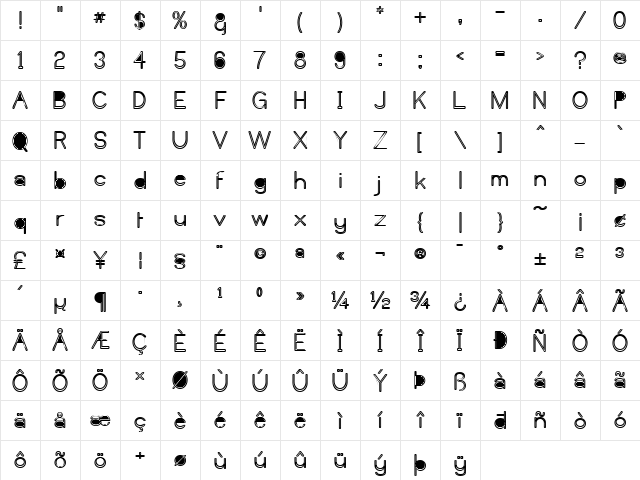
Castorgate - Messed Regular Free Font
Castorgate - Messed Regular
Designer: Graham Meade
Design Context for Castorgate - Messed
Castorgate - Messed is a composed and adaptable typeface that performs quietly and consistently across a wide range of design contexts.